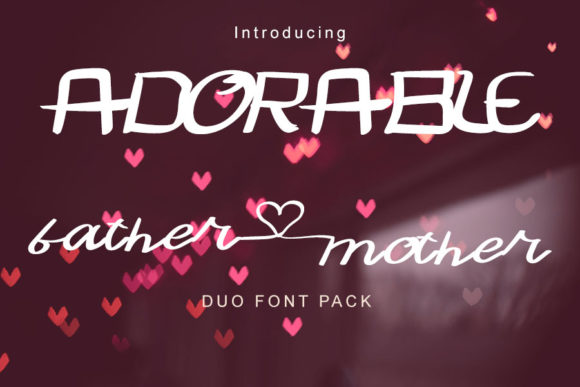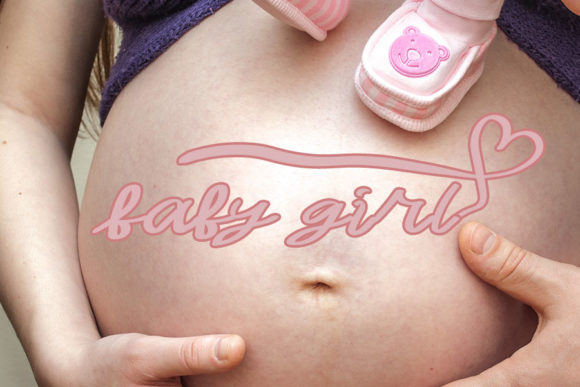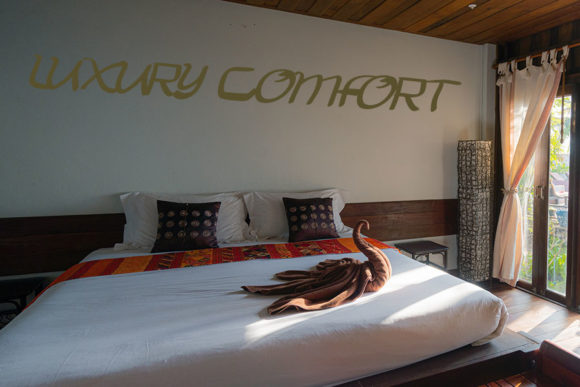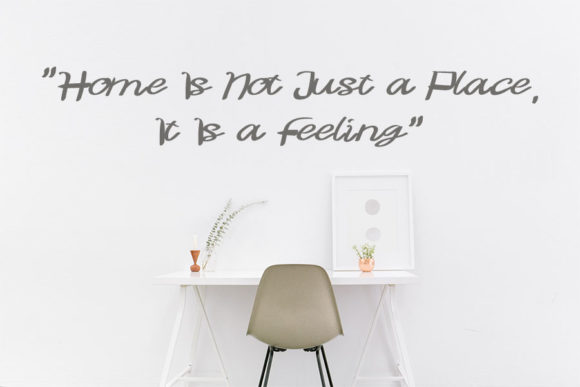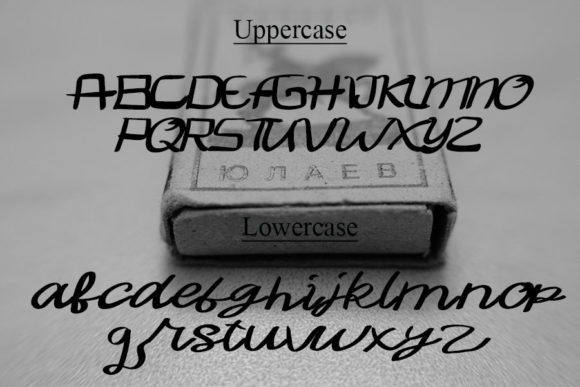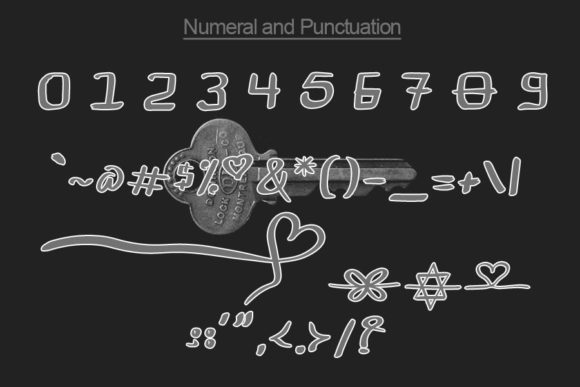
Adorable Font
About Adorable Font
Adorable is an incredibly unique and whimsical handwritten font. Expertly designed to become a true favorite, this font has the potential to bring each of your creative ideas to the highest level!